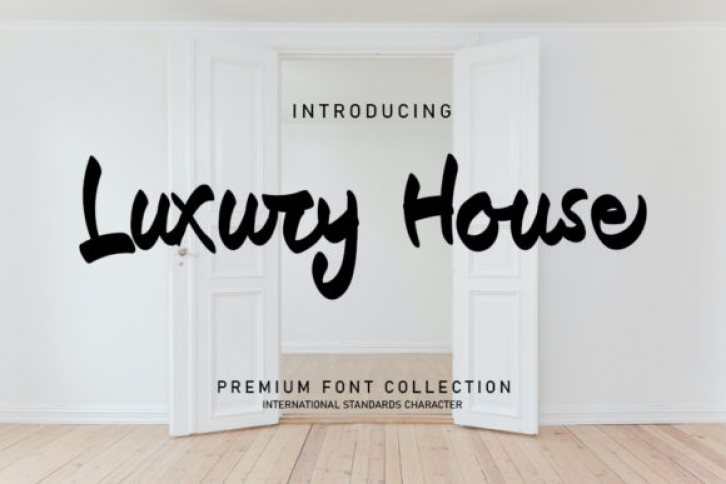
Luxury House is an incredibly unique handwritten font. Masterfully designed to become a true favorite, this font has the potential to bring each of your creative ideas to the highest level!